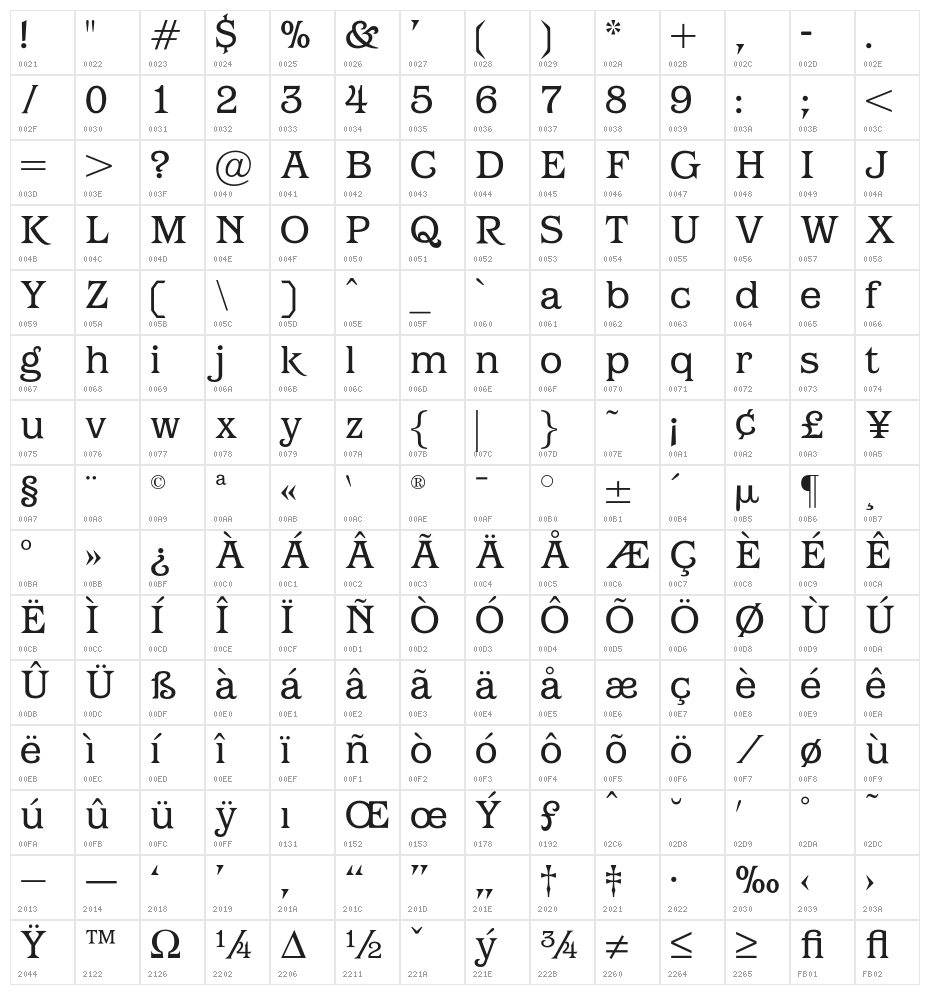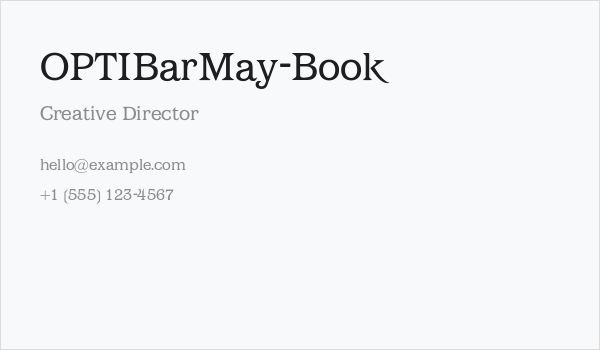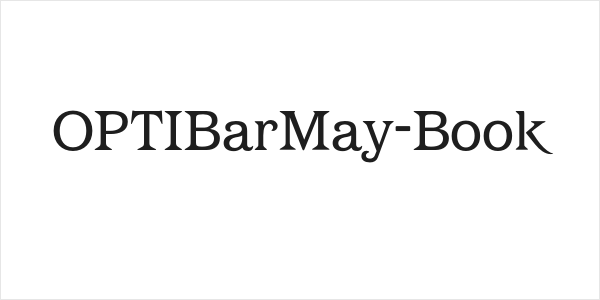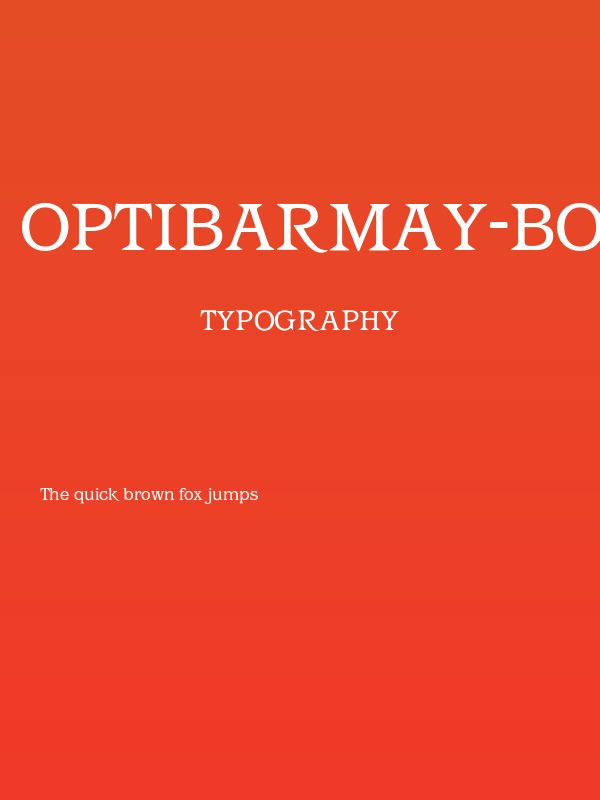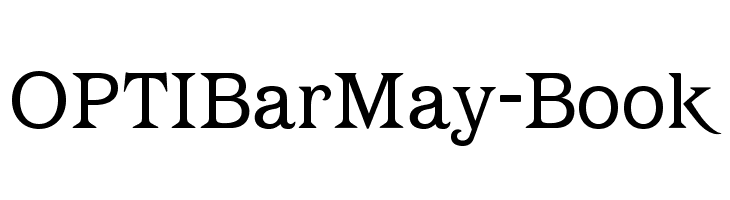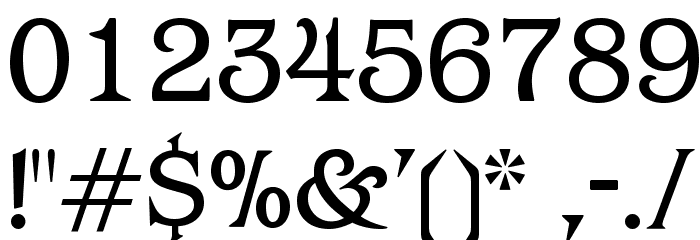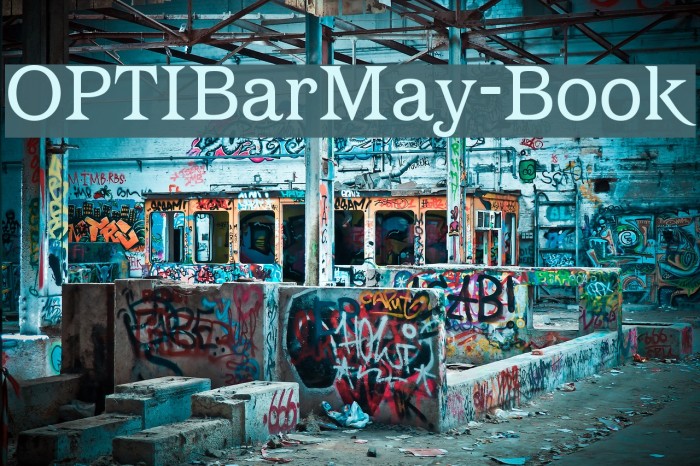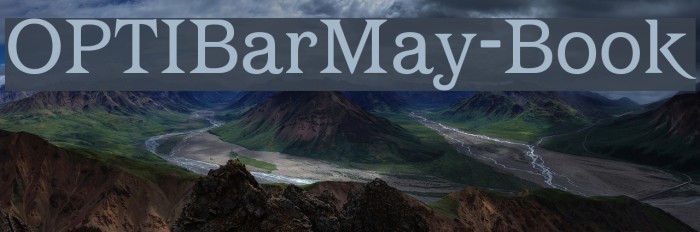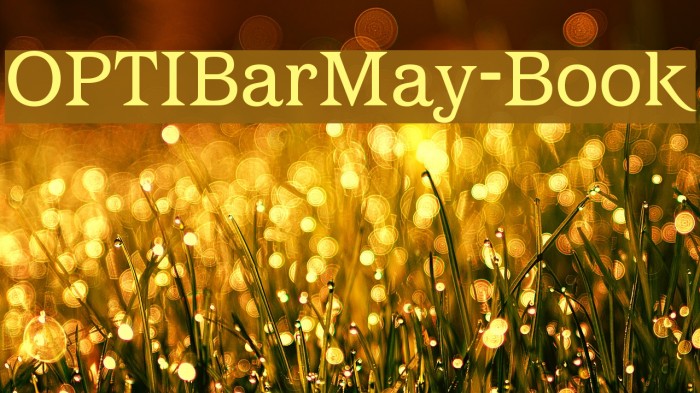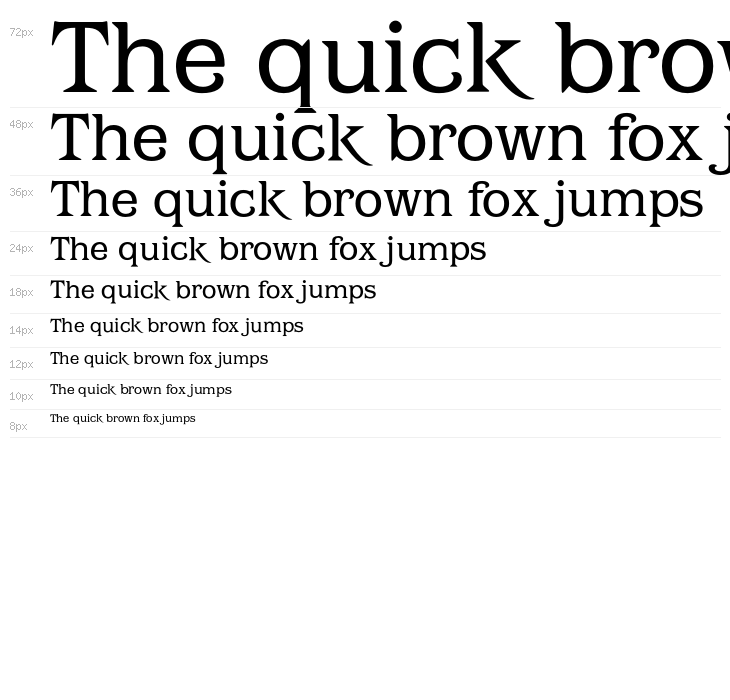
OPTIBarMay-Book Font
OPTIBarMay-Book Description
This font features a classic serif style with a balanced and elegant appearance. The uppercase letters are bold and commanding, while the lowercase letters maintain a smooth and consistent flow. The numerals are clear and distinct, making them easily readable. Special characters are well-defined, adding versatility to the font's application. The overall design is traditional yet adaptable, suitable for a variety of uses. The serifs are pronounced, providing a sense of formality and sophistication. This font is ideal for projects that require a touch of elegance and clarity.
| Proposed Projects | Ideal for book covers, editorial design, formal invitations, and branding materials. |